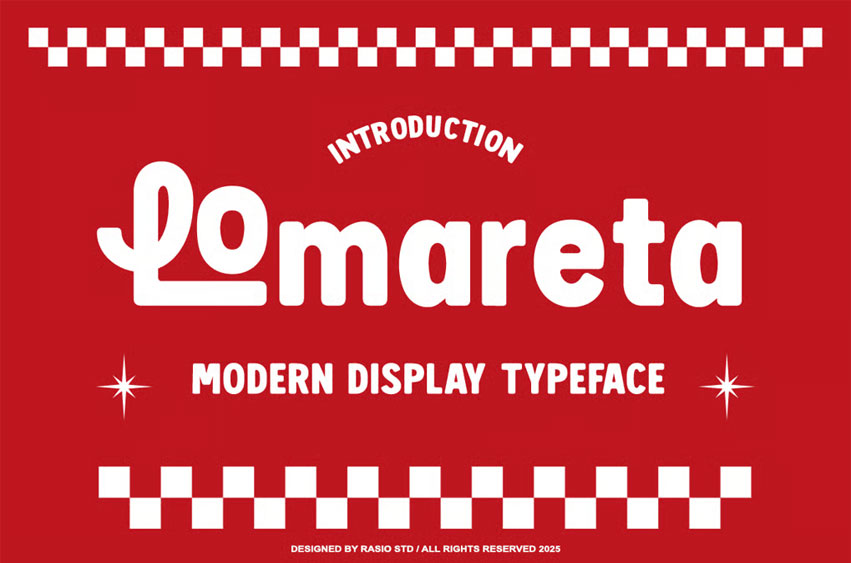
Lomareta Modern Font
Lomareta Modern Font is a bold, modern retro display typeface crafted for speed, energy, and visual impact. Its clean curves, powerful rounded shapes, and full-caps styling make it ideal for motorsport themes, street branding, race team graphics, or any design needing attitude and visibility. Lomareta includes uppercase and lowercase characters, numerals, punctuations, and multilingual support—perfect for logos, helmets, flags, merch, and dynamic branding kits. Designed for print and digital use, it thrives in both vintage-inspired and modern racing environments.
Relevance and Use Cases is perfect for race banners, motorsport branding, helmet graphics, merchandise tags, sports posters, automotive flyers, fast-food packaging, streetwear branding, performance events, track day promotions, youth branding, gear labels, signage design, sponsor boards, typography-driven logos, festival visuals, game design, cafe racer culture, racing clubs, urban sports media.